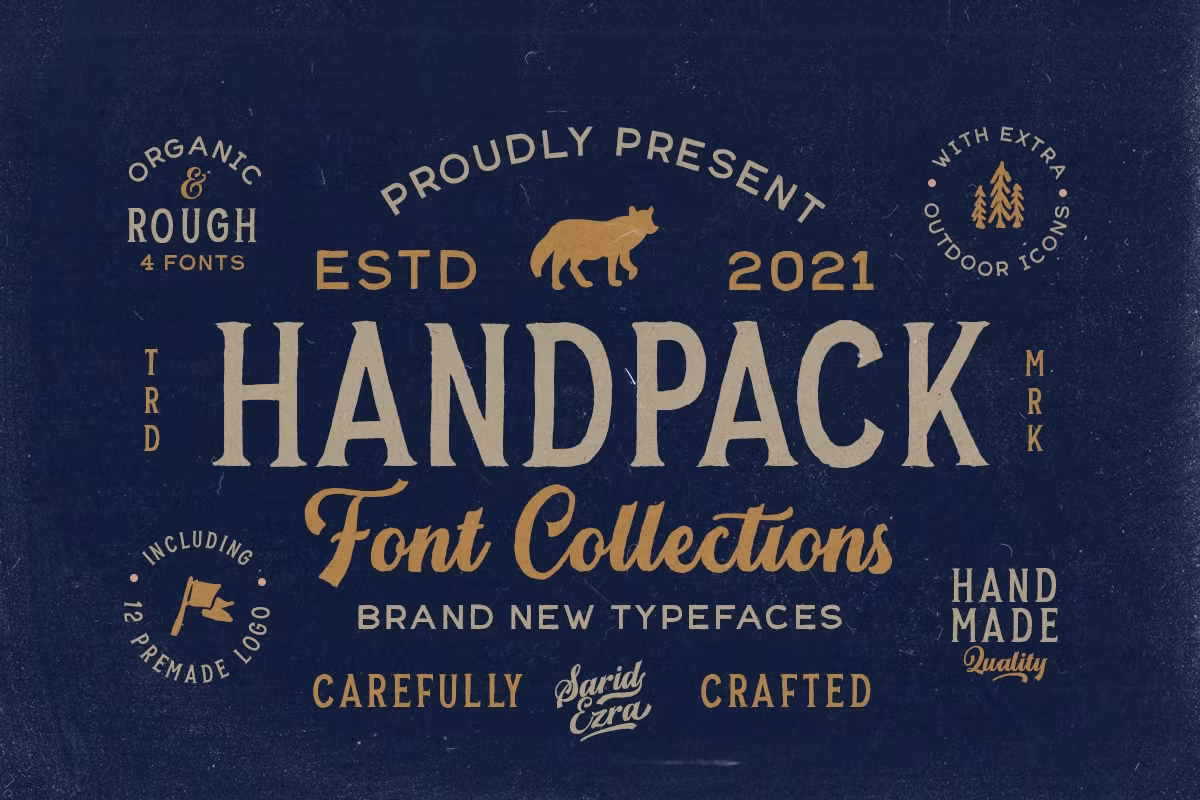
Handpack Font Collections Free Download is a versatile bundle of beautifully crafted handwritten fonts, designed to bring a personal, organic touch to your creative projects. With a variety of script, serif, and sans-serif fonts, this collection is perfect for logos, branding, invitations, social media content, and more. Whether you're working on a stylish business identity, a creative campaign, or a personal project, Handpack Font Collections Free Download offers a wide range of design options. The different styles within the pack allow for endless customization and flexibility. Test the collection in personal projects before purchasing a commercial license and elevate your designs with this diverse and charming font bundle.